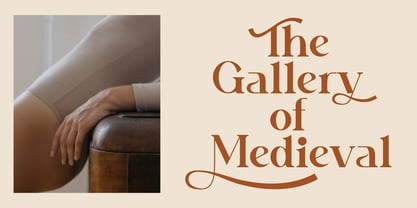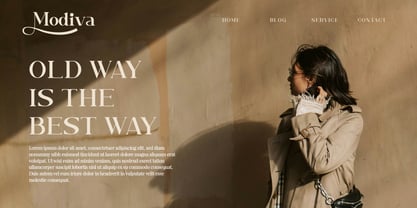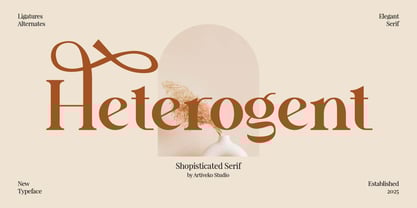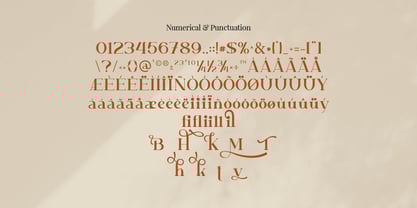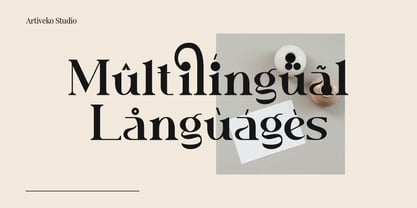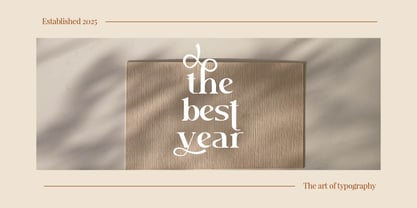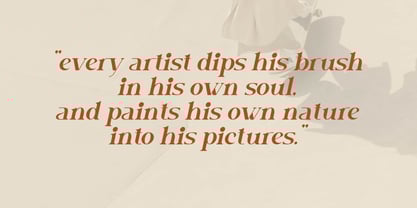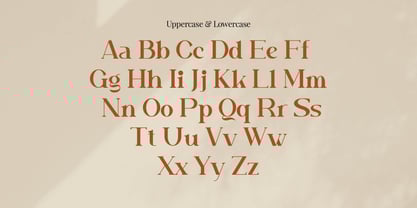
Heterogent
by Artiveko
The Heterogent Font Family was designed by Iwan Alwan and published by Artiveko. Heterogent contains 2 styles.
Heterogent is a refined serif font crafted to embody timeless elegance and high-class sophistication. With its high-contrast strokes, sharp serifs, and graceful proportions, Heterogent is perfect for luxury branding, fashion houses, editorial layouts, perfume packaging, wedding invitations, and statement logo design.
Its elegant structure balances modern minimalism with classic refinement, ensuring excellent readability while conveying exclusivity and prestige. Heterogent is designed for projects that demand a premium aesthetic — whether it’s an upscale magazine, luxury boutique, or creative identity system.
The font includes uppercase and lowercase letters, numerals, punctuation, multilingual support, ligatures, and stylistic alternates for versatile and expressive typography. Every detail has been carefully tuned to deliver polished results across print and digital applications.
Elevate your designs with Heterogent — a luxury serif font that defines sophistication, exclusivity, and timeless premium style.